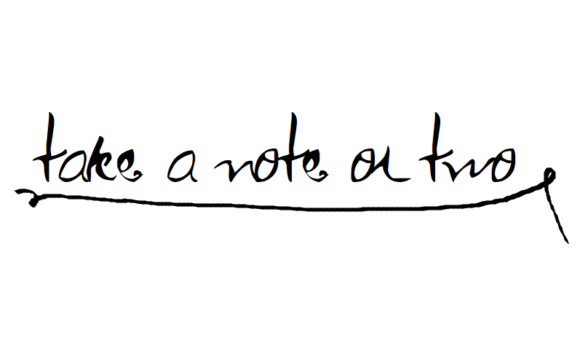
Take a Note or Two Font
About Take a Note or Two Font
The Notes is a handwritten notebook font. It comes in lowercase’s only and can be used to print out your typed notes, decorate your online blog, collect mum’s recipes or to pass on a secret note to your best friend!